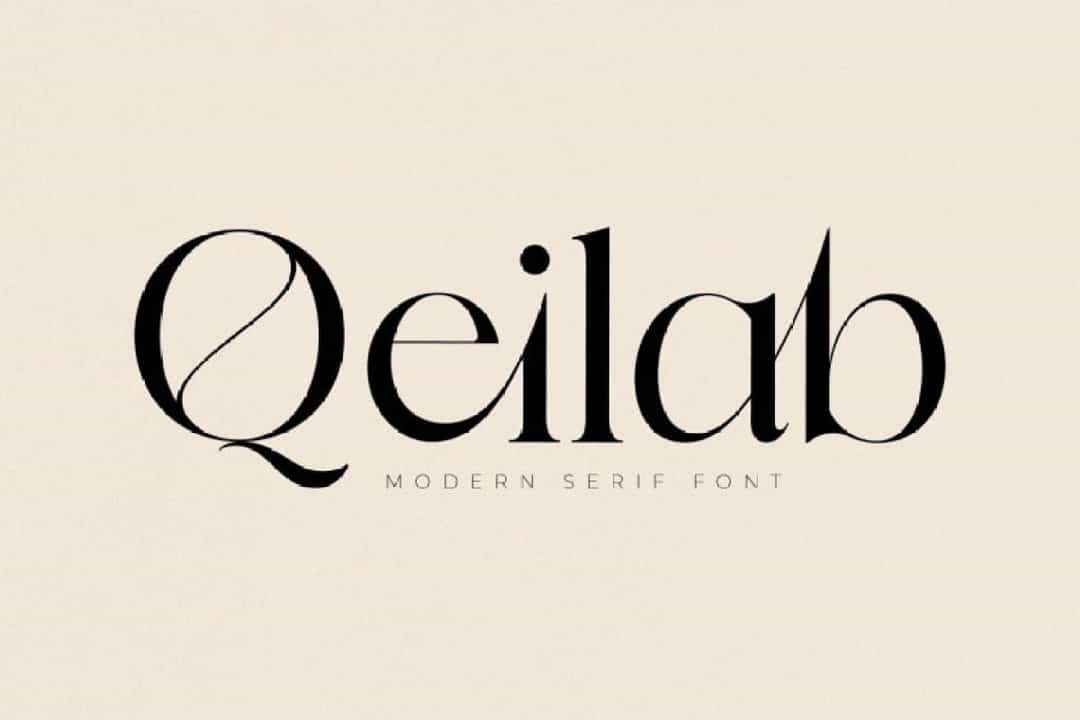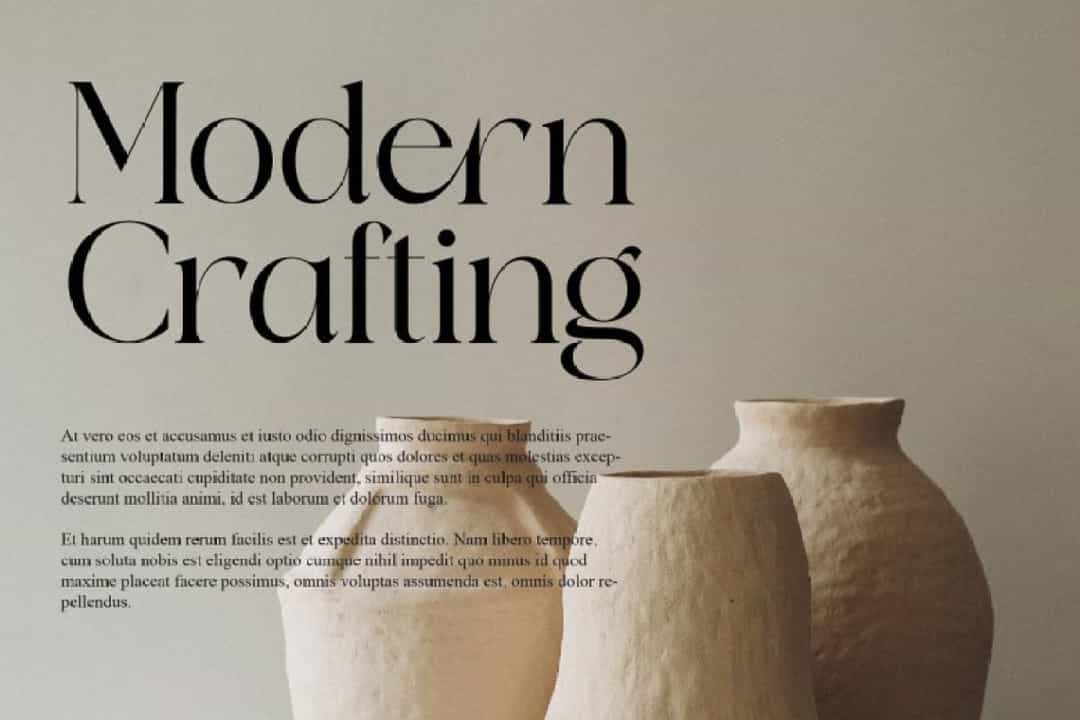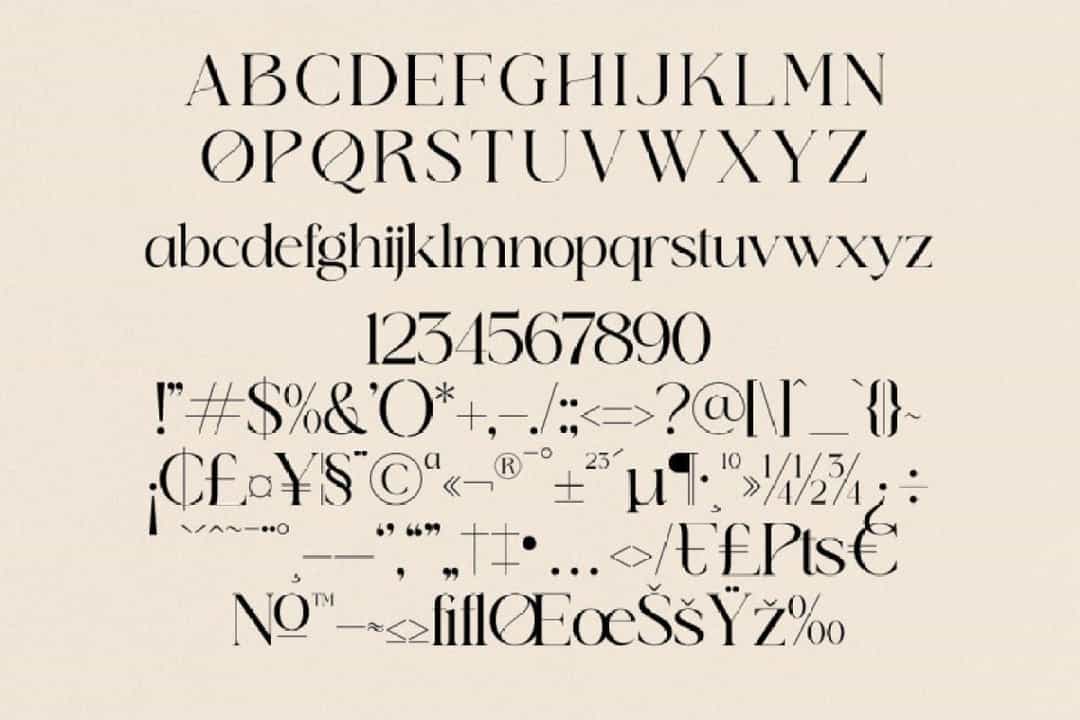
Qeilab by Storytype is an elegant modern serif and classic font with distinctive style and contemporary features. Perfect for sophisticated logo designs, book or film titles design, fashion brand clothing design, magazine letters and quotes among many other uses, this typeface makes a striking first impression!